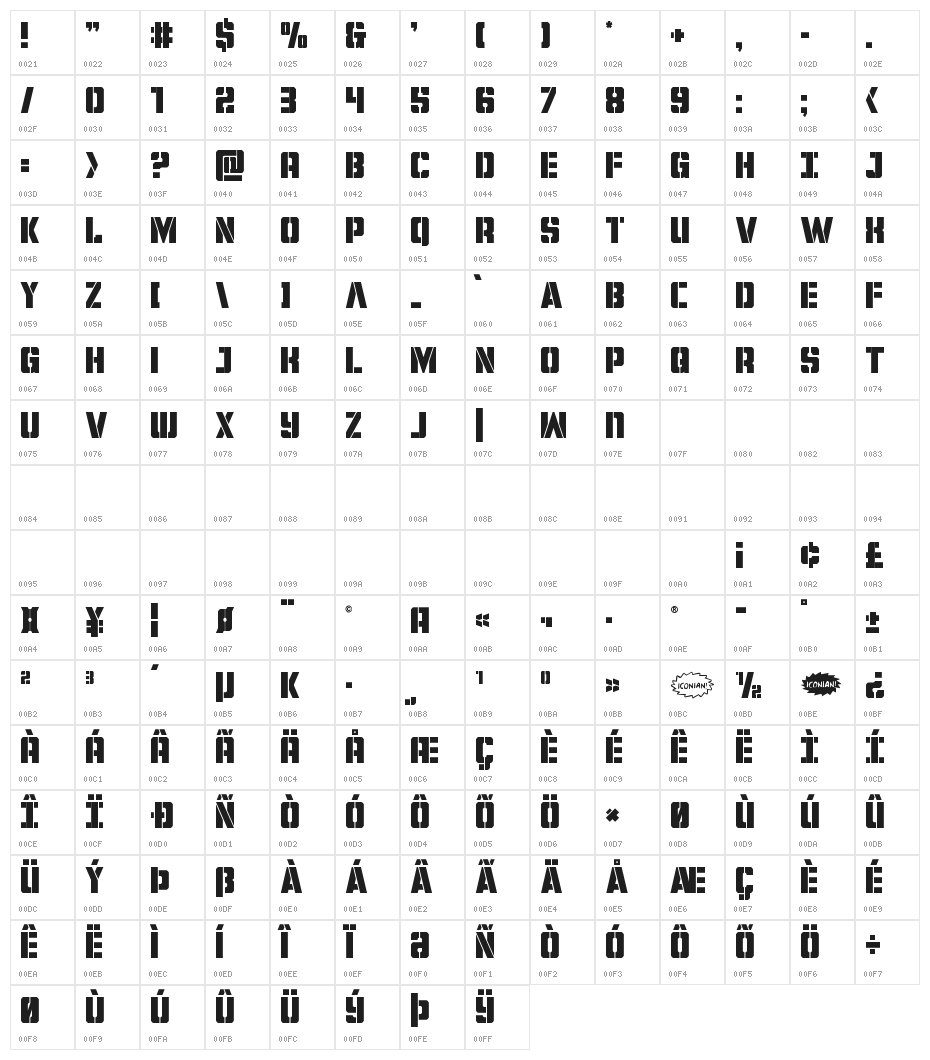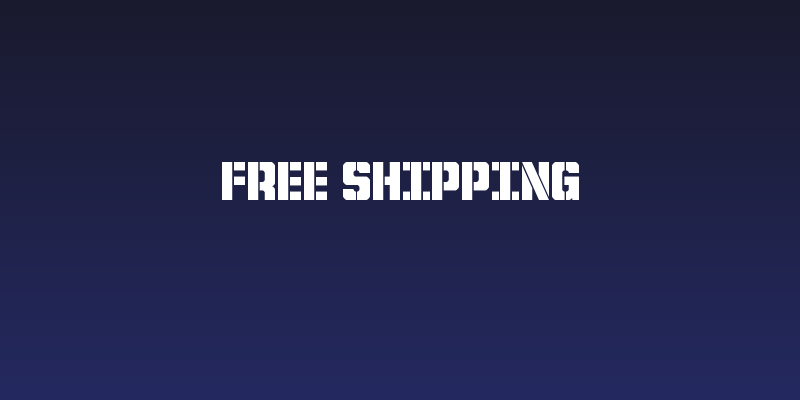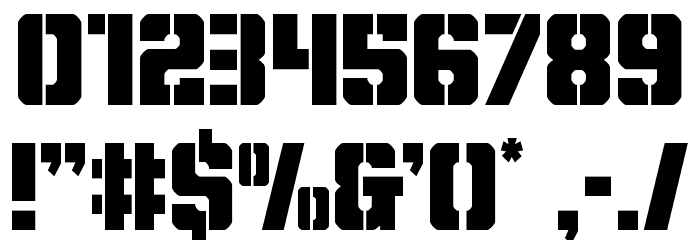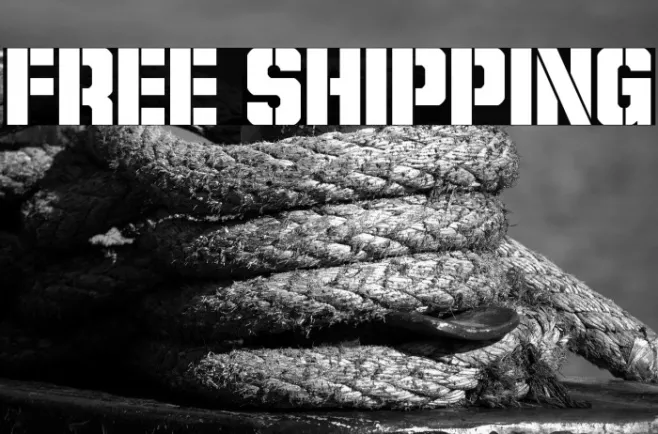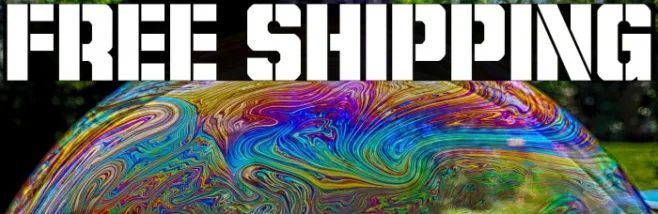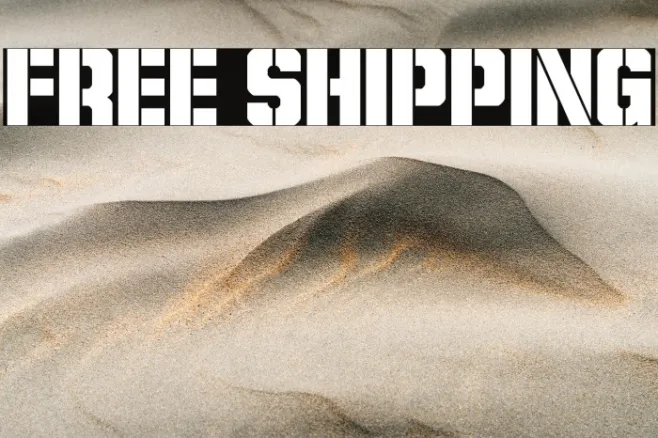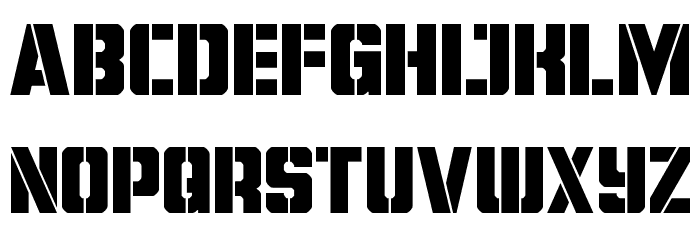
Free Shipping Font
Free Shipping Description
This font features a bold, stencil-like design with strong geometric shapes and high contrast. The characters are constructed with solid, blocky forms that create a sense of strength and impact. The uppercase and lowercase letters maintain a consistent style, with sharp angles and clean lines. The numbers and special characters follow the same bold aesthetic, making them highly legible and visually striking. This font is ideal for projects that require a strong, industrial feel, such as posters, signage, and branding materials.
| Overall Style | Industrial, Modern |
| Use Case | Headlines, Logos, Signage |
| Proposed Projects | Ideal for posters, signage, branding materials, and any project needing a strong, industrial aesthetic. |